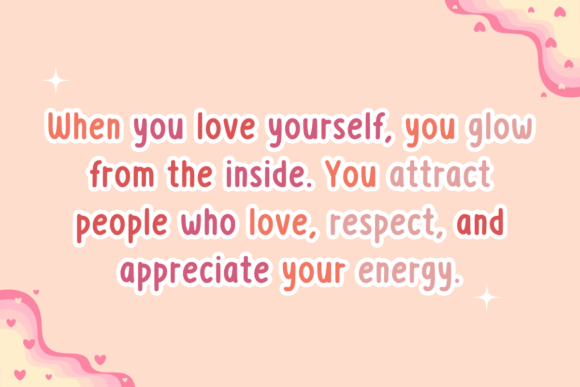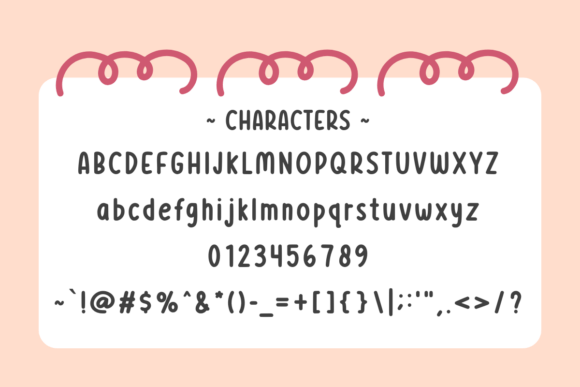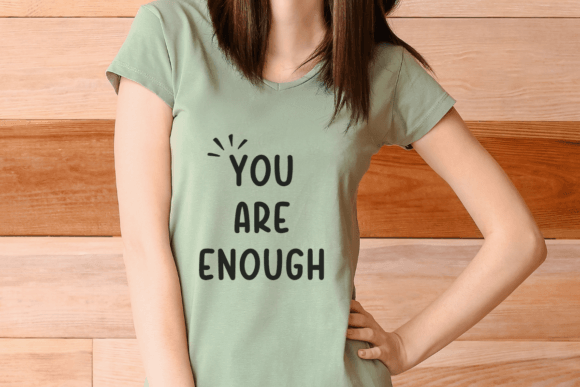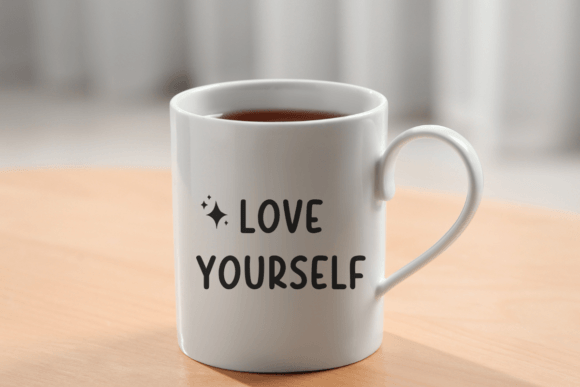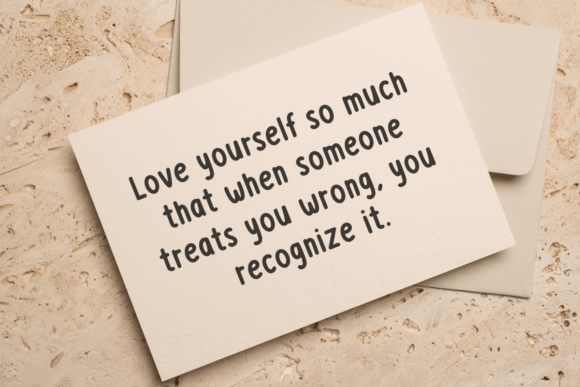
Introduction to Gothic Hearts Font
Have you ever been working on a creative project and suddenly, a spark of inspiration hits you? You envision a design that’s bold, eye-catching, and instantly grabs attention. For designers, this moment is what drives us to push the boundaries of our craft and strive for perfection. And when it comes to creating a lasting impression, the right font can make all the difference.
That’s where the Gothic Hearts Font comes in – a stunning sans serif font that’s perfect for logos, branding, and quotes. Its unique and beautiful touch brings designs to life, making it a valuable resource for any creative project. Whether you’re working on a high-quality design or need a free download for a personal project, the Gothic Hearts Font is an excellent choice.
Key Features of Gothic Hearts Font
- High-Quality Design Resource: The Gothic Hearts Font is a premium design resource, ideal for creative projects that require a unique and elegant touch.
- Unique Gothic Typography: The Gothic Hearts Font features a distinctive, hand-crafted design that adds a touch of elegance and sophistication to any creative project.
- Perfect for Various Design Projects: This font is suitable for a wide range of design projects, including wedding invitations, branding, and editorial designs.
Honest Review: Gothic Hearts Font
As a designer, I’m always on the lookout for high-quality design resources that can elevate my creative projects. Recently, I had the chance to work with the Gothic Hearts Font, and I’m excited to share my honest review with you.
- ✨ Elegant and intricate design: The Gothic Hearts Font features beautiful, intricate details that add a touch of sophistication to any project.
- ✨ Versatility: This font is perfect for a wide range of creative projects, from invitations and posters to digital designs and branding materials.
- ⚠️ Limited character set: The font only includes a limited set of characters, which may not be suitable for projects that require a full character set.
- ⚠️ Not suitable for small text: Due to its intricate design, the font may not be ideal for small text or headlines.
Overall, I’m impressed with the Gothic Hearts Font. Its high-quality design and versatility make it a valuable resource for designers. While it may have some limitations, it’s a great choice for creative projects that require a touch of elegance and sophistication.
Gothic Hearts Font
Tips for Getting the Most Out of Gothic Hearts Font
For optimal results, use the Gothic Hearts Font in combination with high-contrast colors and bold design elements. Experiment with different font sizes and styles to create a visually appealing design.
Common Use Cases for Gothic Hearts Font
The Gothic Hearts Font is ideal for use in creative projects such as wedding invitations, horror-themed designs, and gothic-inspired art. Its elegant and mysterious design makes it perfect for adding a touch of sophistication to any project.
What is the recommended font size for the Gothic Hearts Font?
The recommended font size for the Gothic Hearts Font depends on the specific design application and the intended use of the font. However, as a general guideline, we recommend using font sizes between 18-48 points for body text and 72-100 points for headings. This will ensure that the font is legible and visually appealing.